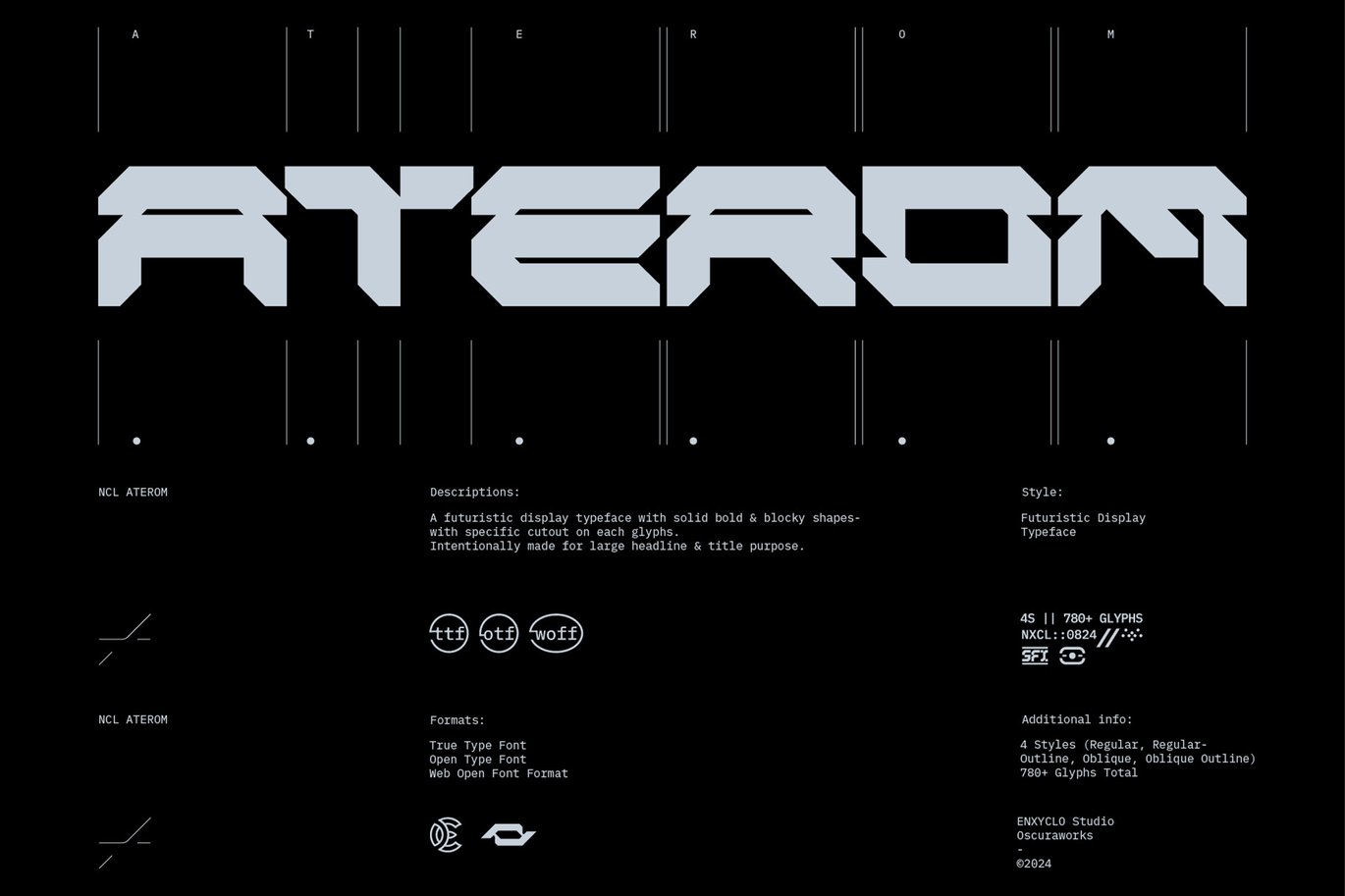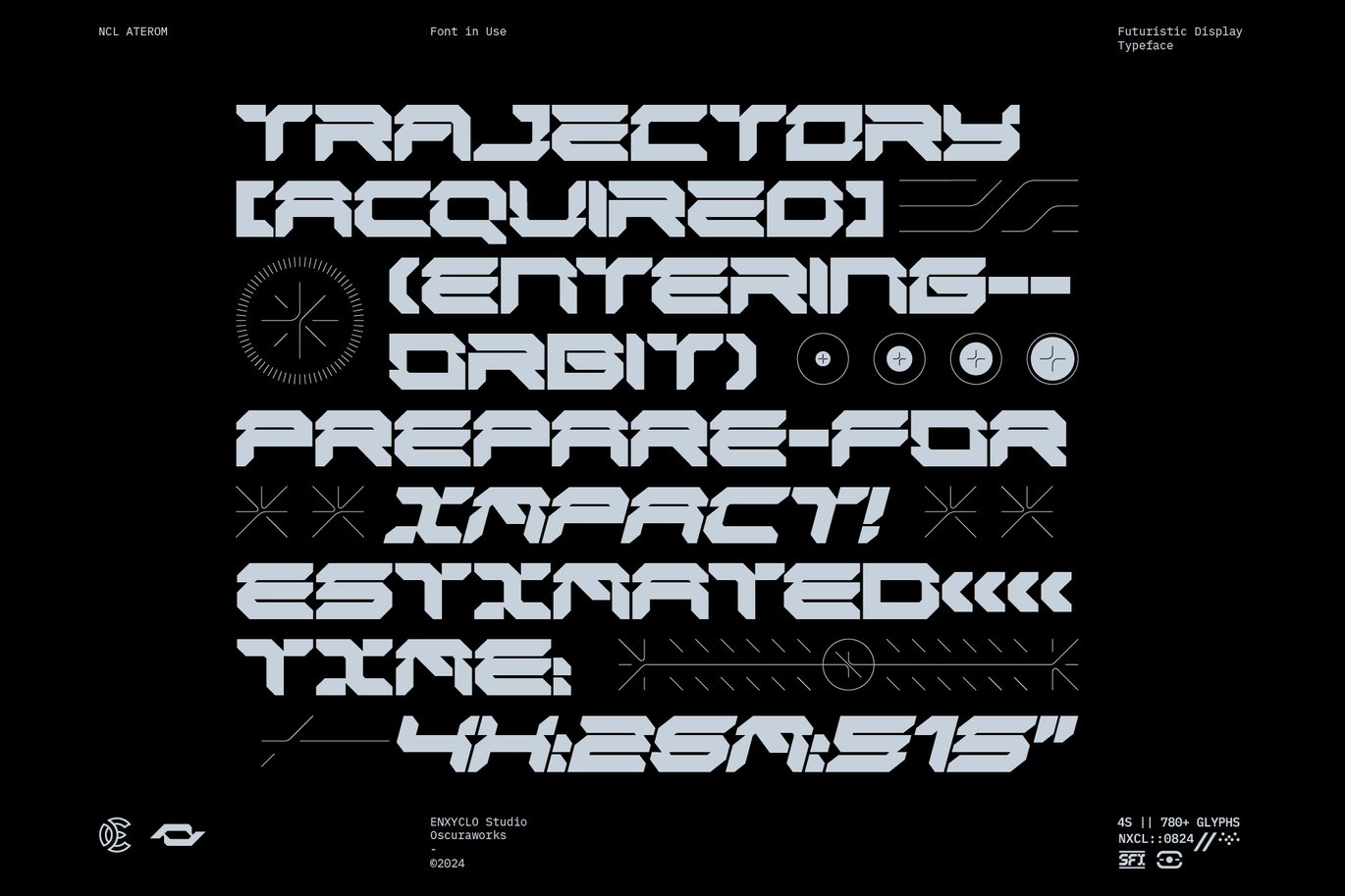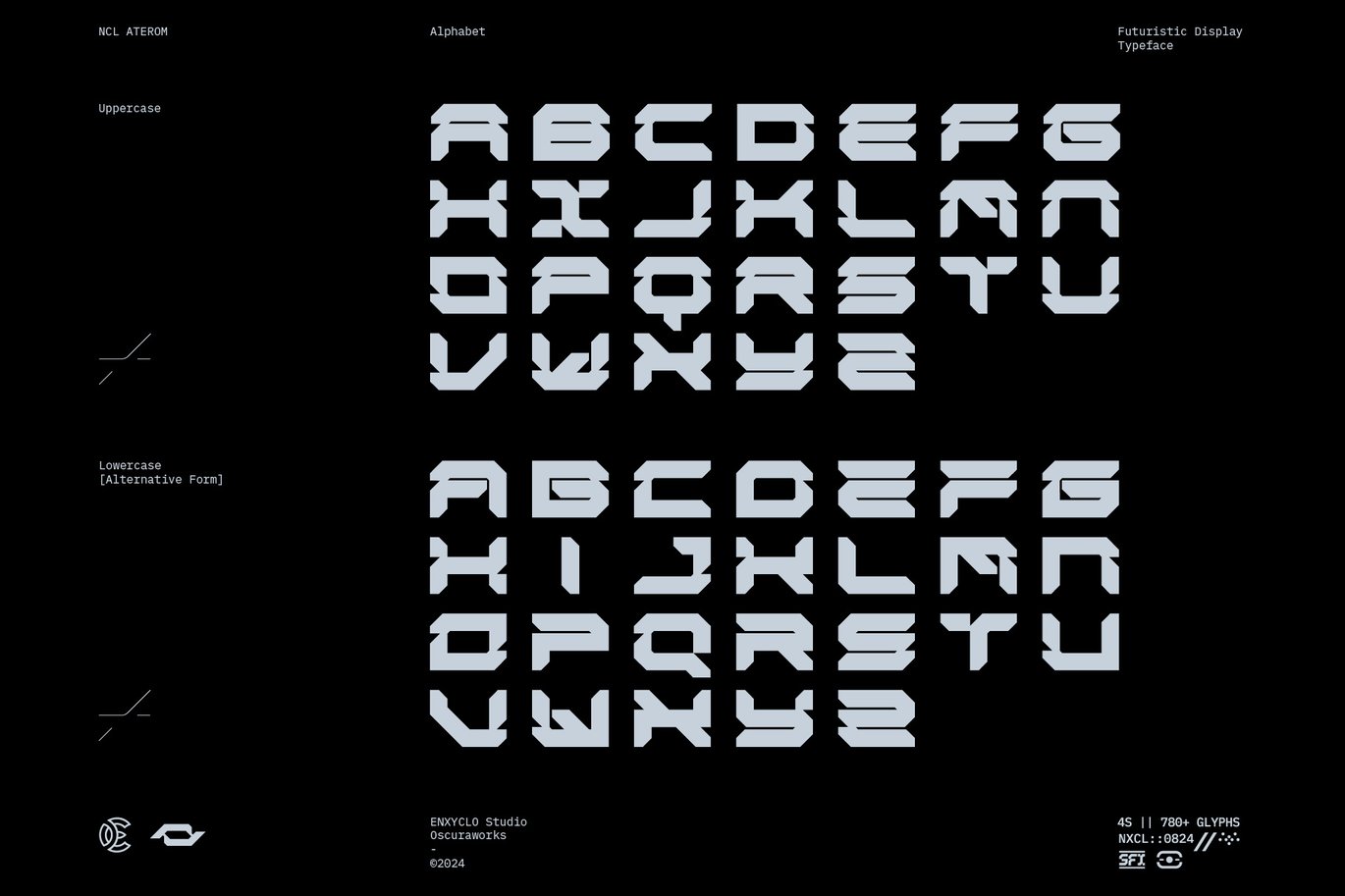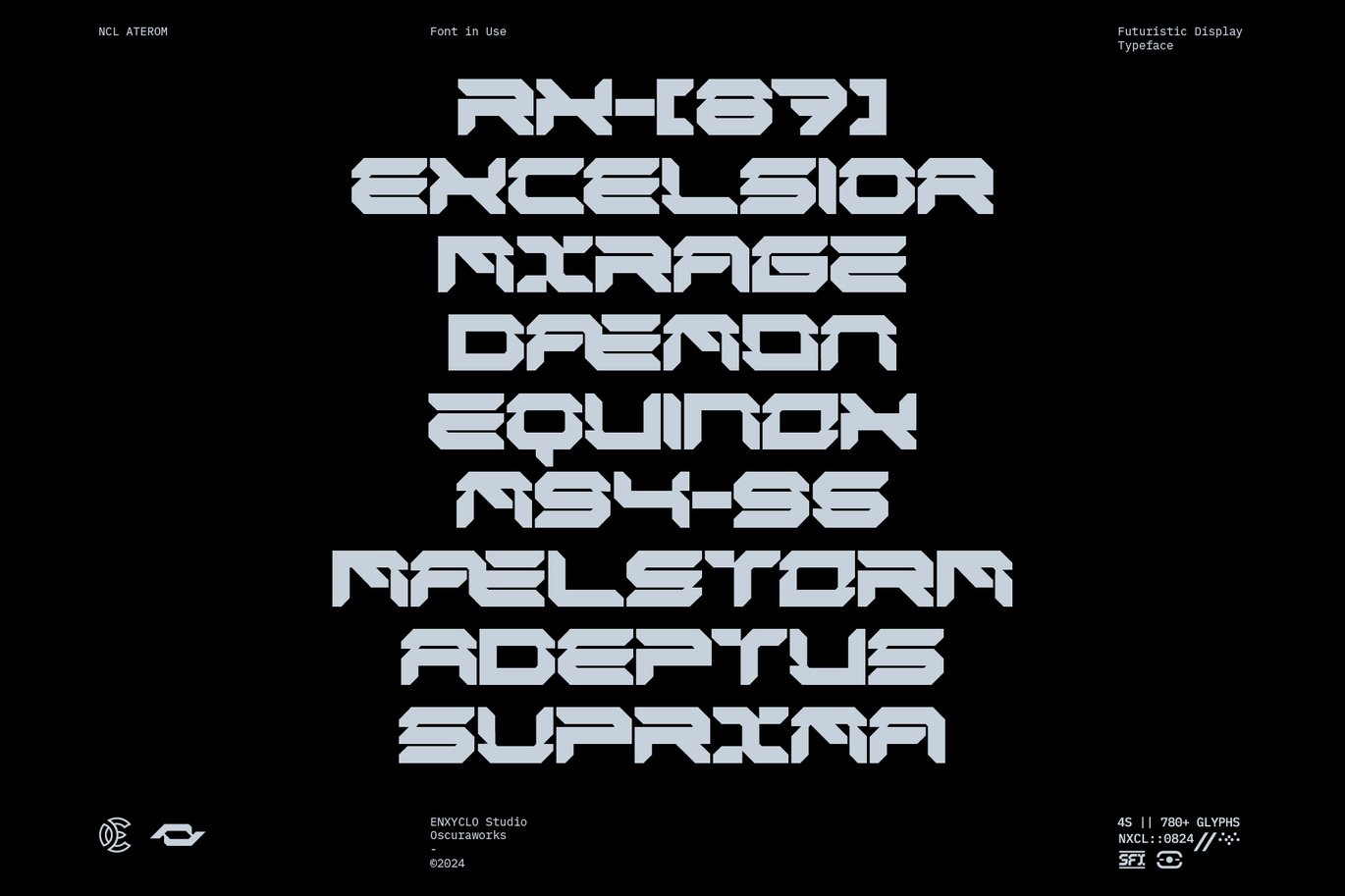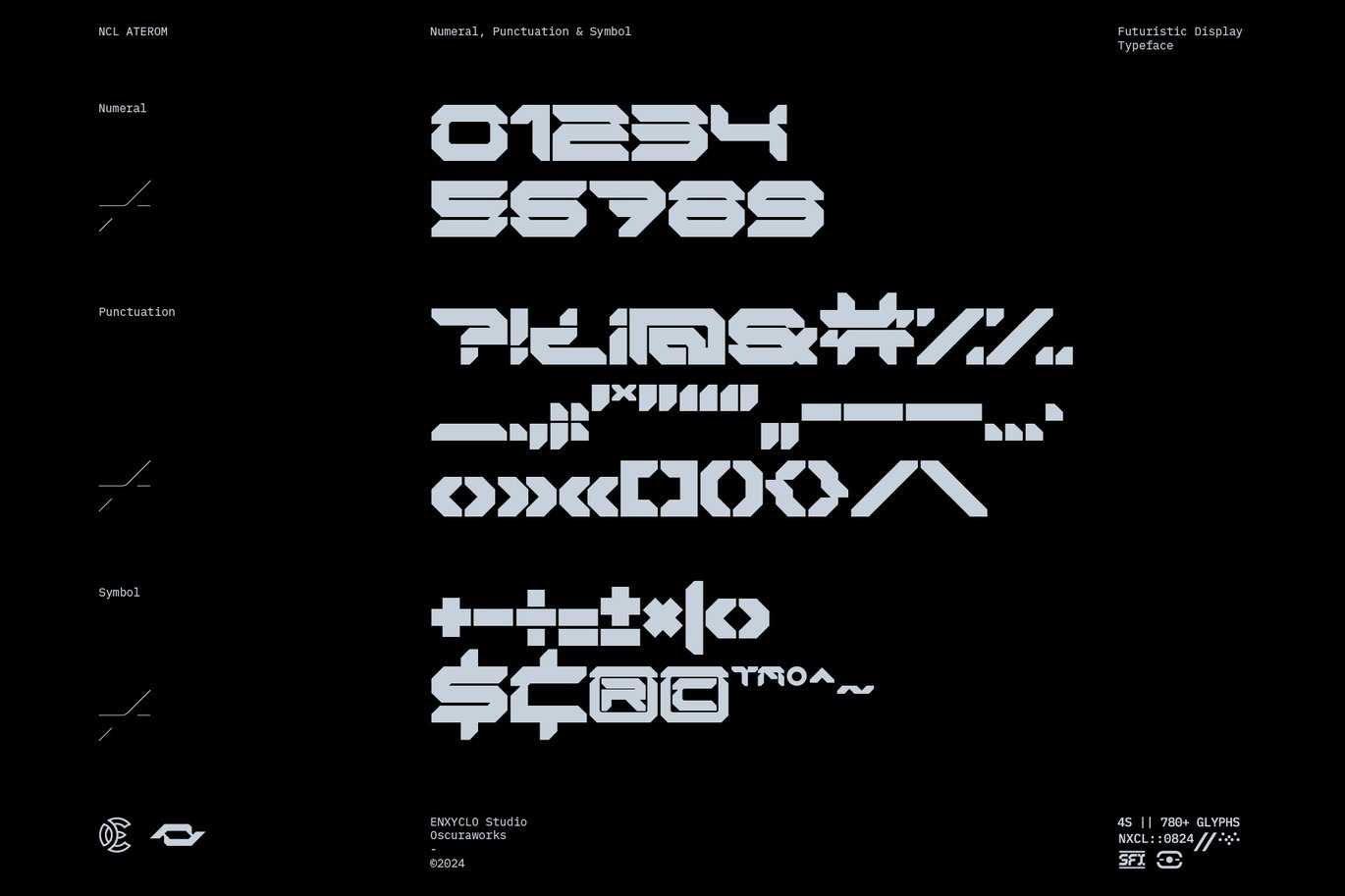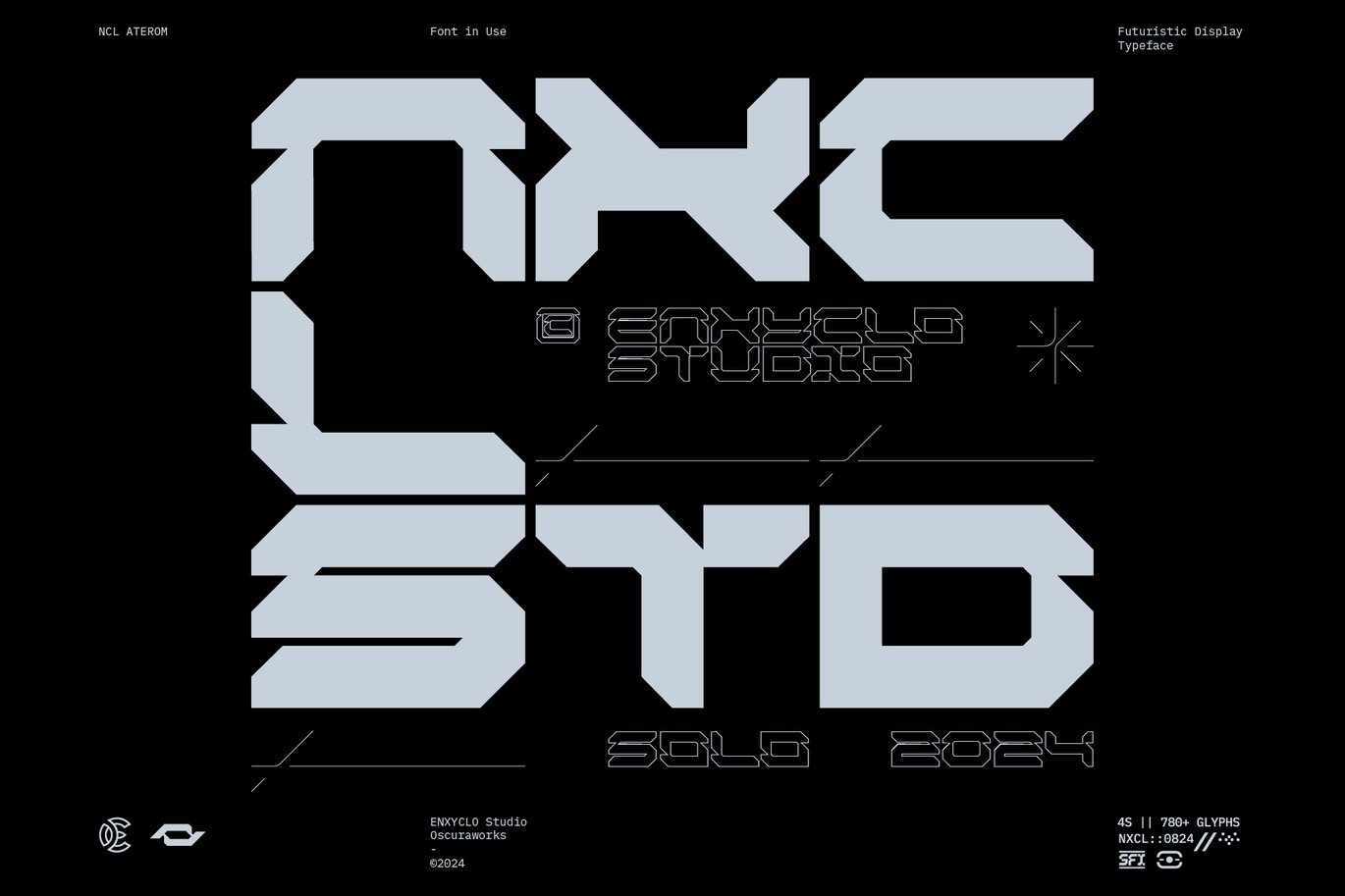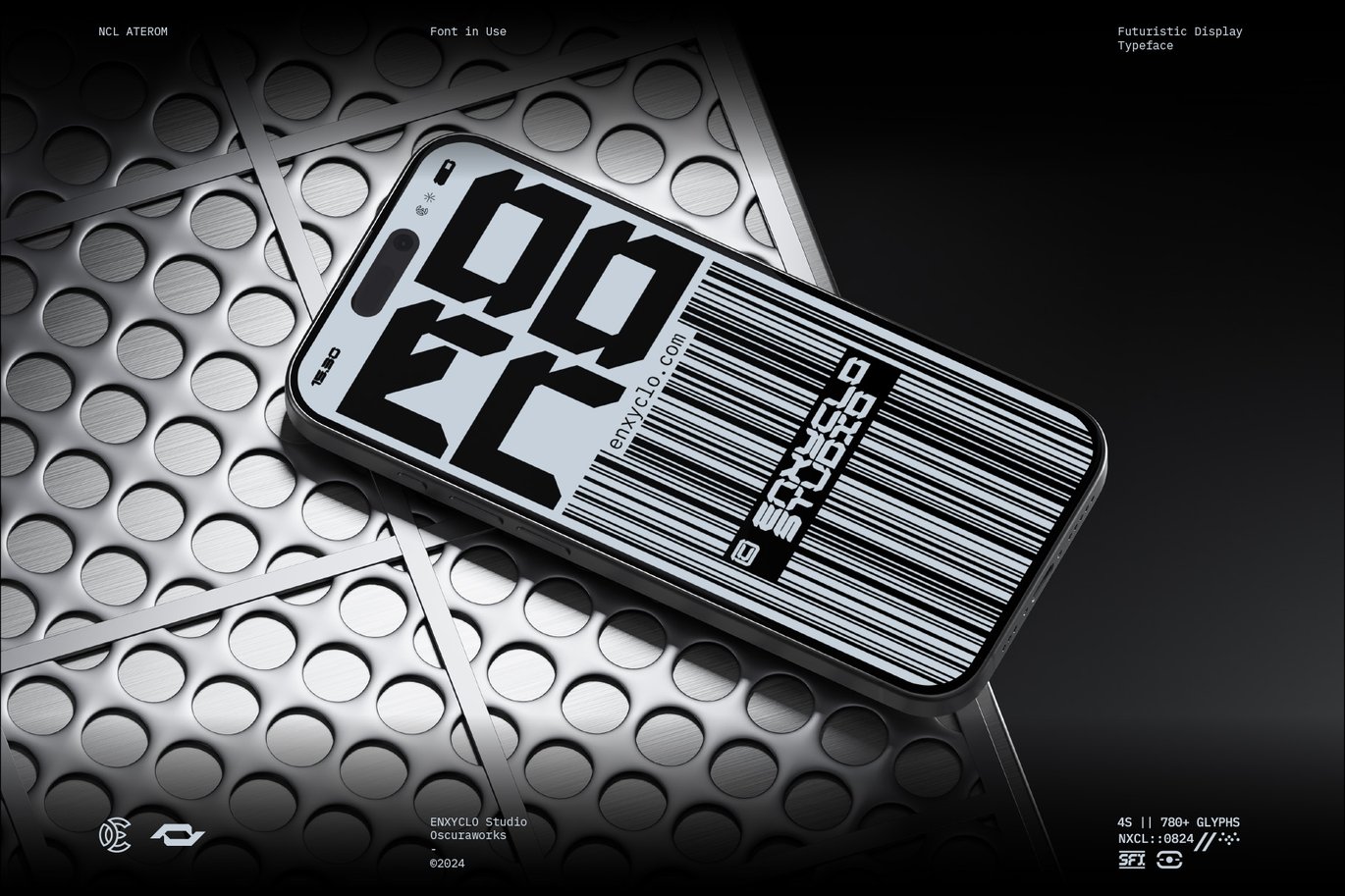
NCL Aterom – Futuristic Logo Cyberpunk Bold Font
NCL ATEROM is a futuristic mecha cyberpunk display typeface with solid, bold, and blocky shapes, featuring unique cutouts on each glyph. Inspired by industrial robotics and mecha styles, this stunning and powerful font stands out with its bold industrial aesthetic. Perfect for album artwork, posters, headlines, and logotypes. This awesome font brings a cutting-edge style to your designs. Add this versatile font to your toolkit today and elevate your projects.
- 4 Styles: Regular, Regular Outline, Oblique Outline
- Contains 201 glyphs for each style
- 780+ Glyphs for Total
- Uppercase + Lowercase
- Numeral, Punctuation & Symbols